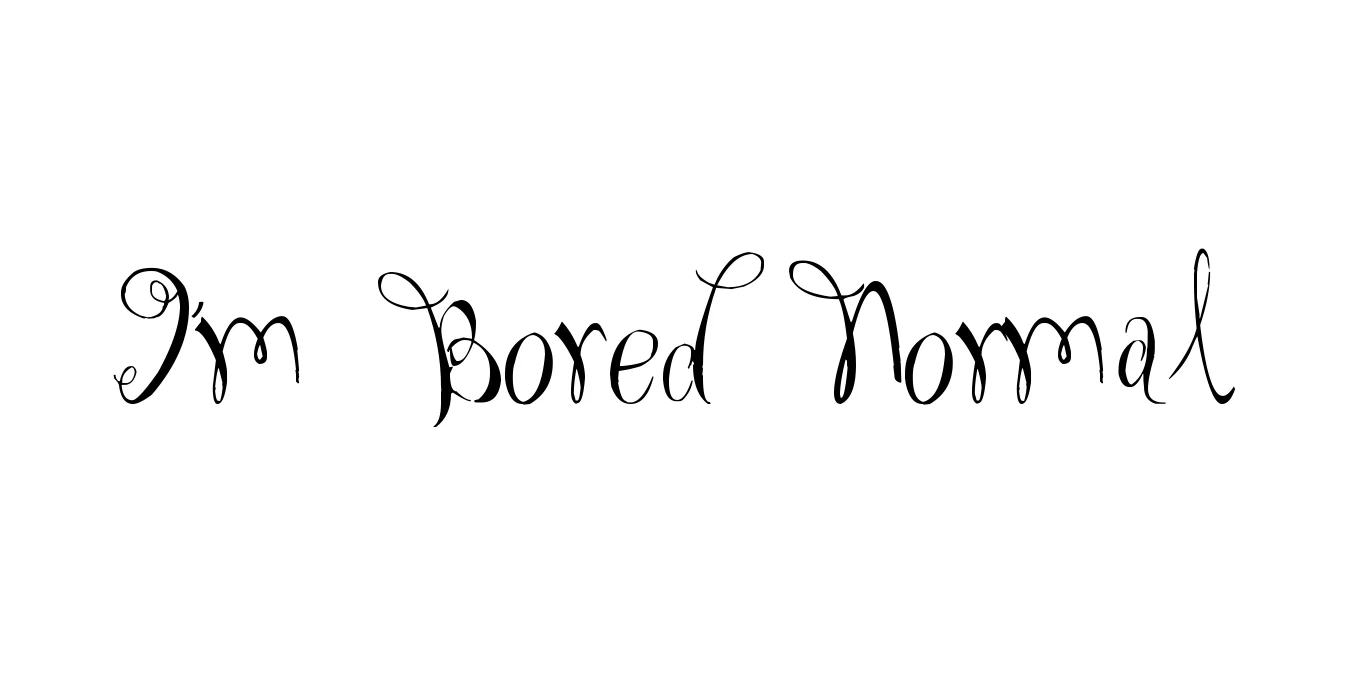
I'm Bored Normal
Designed by Jakob Fischer (Pizzadude)
| Category | Handwritten / Script |
| Similar Fonts | Comic Sans, Marker Felt, KG Neatly Printed |
I'm Bored Normal is a whimsical and highly expressive handwritten typeface designed by Jakob Fischer of the Pizzadude foundry. This font captures the essence of casual, spontaneous scribbling, mimicking the letterforms one might doodle during a moment of restlessness. Its irregular strokes and shifting baseline provide an authentic, human feel that avoids the rigidity of traditional digital typography, making it a standout choice for creators seeking a personalized touch.
The font is characterized by its playful energy and approachable aesthetic, making it a staple in the toolkit of designers working on youth-oriented or informal projects. Because it emphasizes a hand-drawn charm, it excels in environments where a formal typeface would feel too stiff. Over the years, it has become a popular choice for everything from webcomics to casual marketing materials that require a sense of humor and accessibility.
I'm Bored Normal Best Uses
Highly effective for character dialogue and lighthearted narrative text.
Perfect for relatable, organic-looking posts on Instagram and Pinterest.
Ideal for indie music flyers, school events, and informal announcements.
Great for small businesses or personal brands looking for a DIY or punk aesthetic.
Works well for t-shirt designs that require a hand-lettered, streetwear vibe.